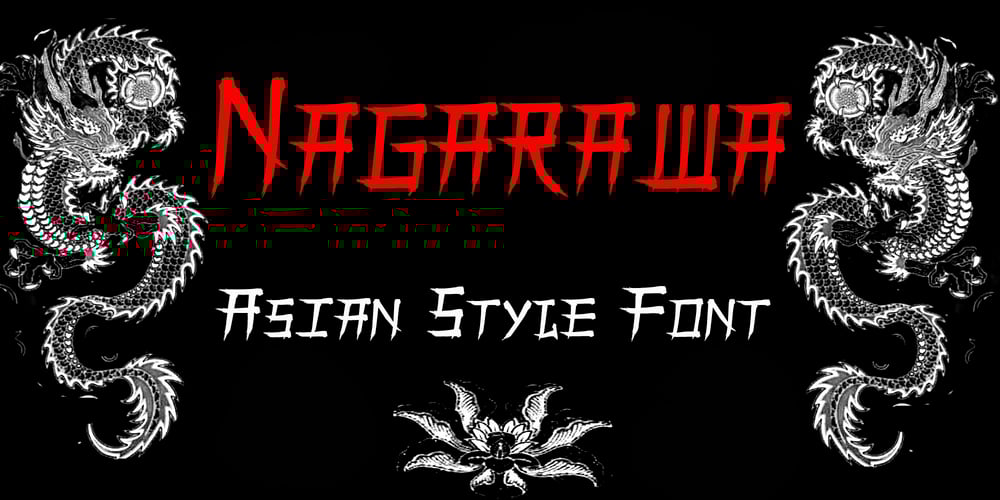
Nagarawa Font Family was designed by bsmbang wisudyantoro and published by Beewest Studio. Nagarawa contains 1 styles and family package options. Nagarawa is an Asian style font, very suitable for various logotypes for Asian nuanced products, such as Asian food, martial arts clubs, music, novel and comic titles, apharel clothing and others.